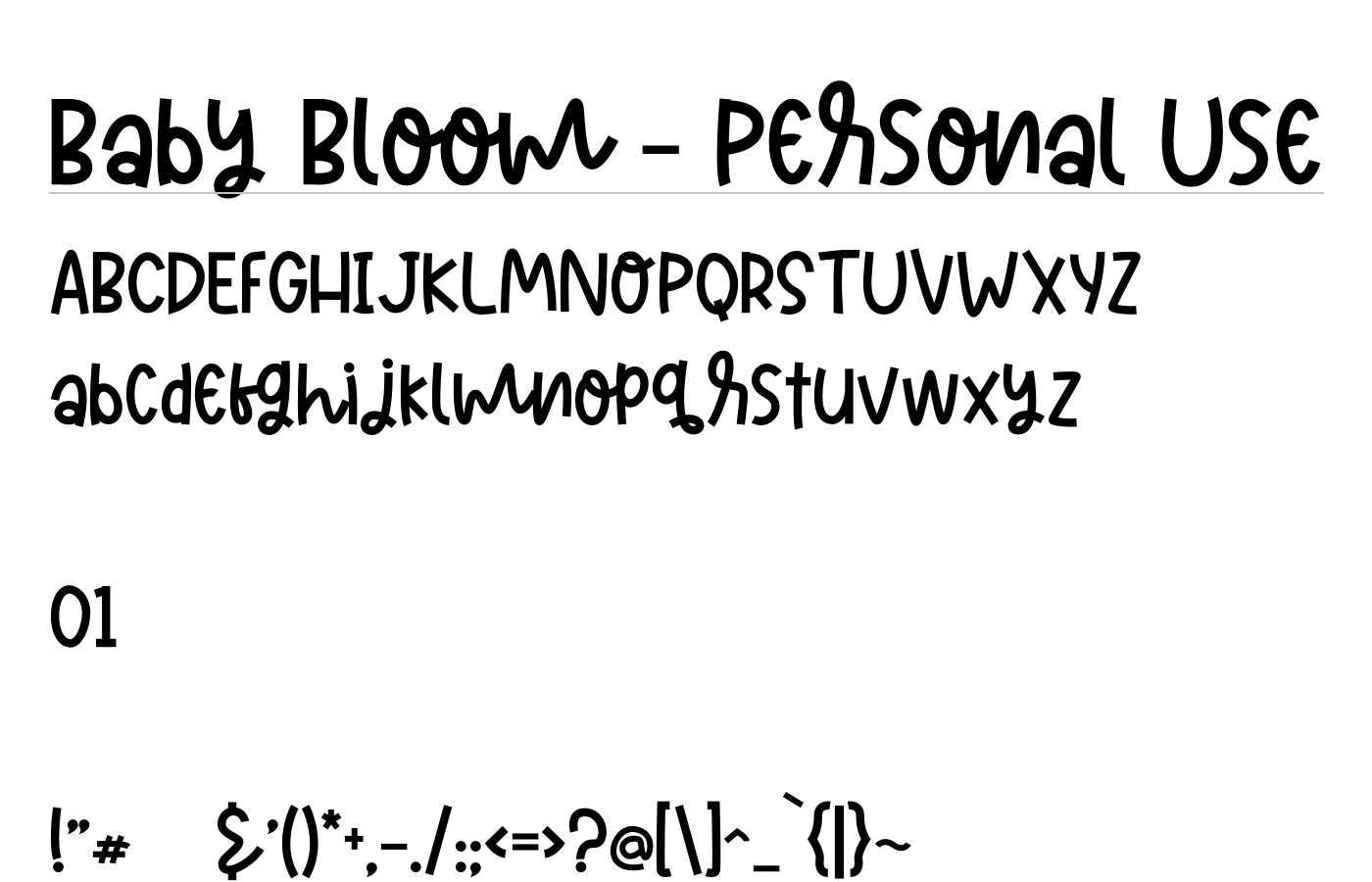
Baby Bloom is a playful and quirky handwritten font with a casual, slightly uneven stroke that gives it a warm, friendly feel. Its rounded, irregular shapes and varied letterforms make it perfect for informal, creative designs like children’s products, party invitations, or fun branding that wants to convey approachability and charm. This font works best in headlines and display uses where personality and whimsy are key.
Baby Bloom - Personal Use Font
About Baby Bloom - Personal Use Font
| Font family | Baby Bloom - Personal Use Font |
| Designer | Sarwo Edhi Prayitno |
| Trademark | Haksen Studio |